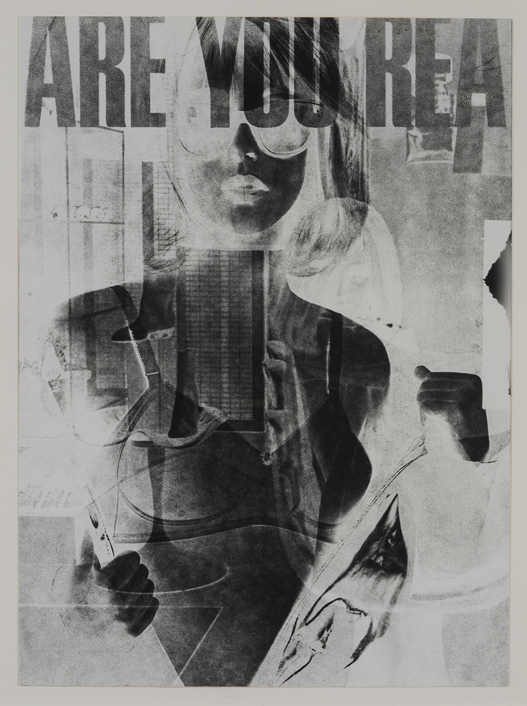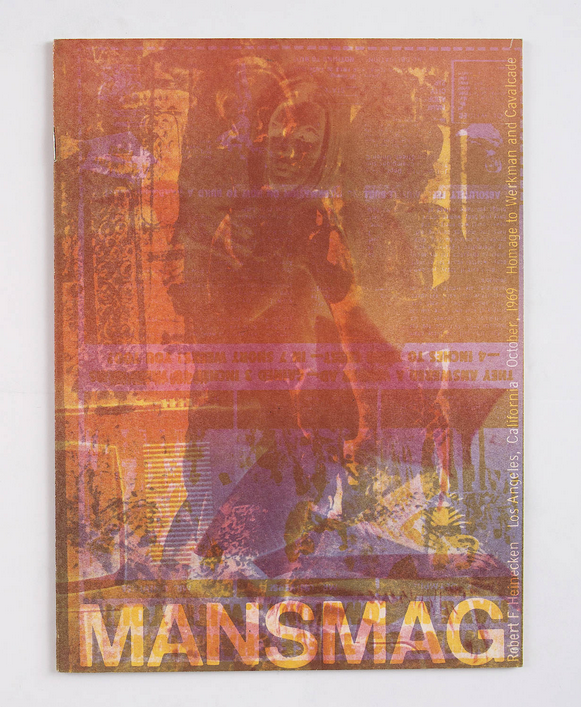
Why Robert Heinecken’s typographic elements is the trend of the season
His work is unsettling as well as provoking. He had a thing for pornography and he experimented with his medium in any possible way. He was a true Californian artist and today, almost eight years after his death, his work is all the hype thanks to a curator and a designer, a museum and a fashion House. What timing, alright! When MoMA’s curator Eva Respini introduced us to the dystopian world of Heinecken in the first major retrospective of his work after his passing in 2006, another photographer decided to pay tribute to what seems to be a trend this season. The invitation to this year’s catwalk show for Hedi Slimane’s Saint Laurent show (Yves is now obsolete - deconstructing French fashion was a bold thing to do) was a booklet of Robert Heinecken’s work. Robert Heinecken was the ‘para-photographer’ who made -often explicit and disturbing- art out of media images, questioning modern culture and its pornographic elements, whose work can be explored at Hammer Museum at UCLA through January 2015.
A pioneer in the postwar Los Angeles art scene, his work stood “beside” or “beyond” traditional ideas associated with photography. Working across multiple media, including photography, sculpture, video, printmaking and collage, he recontextualized found images to art. Through collage and assemblage, double-sided photograms, darkroom experimentation and rephotography, Heinecken’s rough universe resonates with current artistic practice. Commercialism, Americana, kitsch, sex, the body and gender can be found in the portfolio of the artist and teacher obsessed with popular culture and its effects on society. Even though he was a photographer, he seldom used a camera. As a graduate student at U.C.L.A., Robert Heinecken specialized in printmaking, but in those days, when the contemporary Los Angeles art scene was in rebellion, he began to combine lithography, etching, sculpture and photograms in any way imaginable. He, himself was quite imaginative.
“There is a vast difference between taking a picture and making a photograph”
His hybrid integration of photography with other media was a rebuke to the aesthetics of conventional artists. Maybe it is because he has always been closely associated with photography that he never achieved to gain an international reputation similar to that of Ed Ruscha, but that would probably not be a problem for the man who combined letterforms and images, boobs and bush, the highs and lows of pop culture and managed to make art that would be the foreshadow of what’s on the Internet today.
His approach on photography was very close to today’s internet visual culture: an overload of random images appearing on a retina display, letting you, the user, mix your own experience with the visual information you receive. An artist to the bone, Robert Heinecken took no interest in photography as a documentative medium. “Many pictures turn out to be limp translations of the known world instead of vital objects which create an intrinsic world of their own”, he once said. “There is a vast difference between taking a picture and making a photograph”. Maybe the man who became from outlier to prophet was right when he said that there are already enough pictures in the world, a call to creativity obviously.